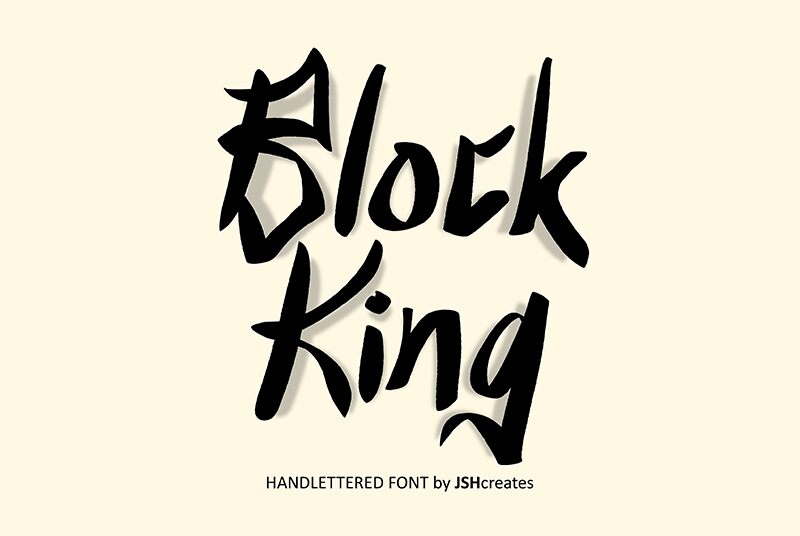
Block King
Block King font is a display graffiti font designed by JSH Creates. It has a handwritten style with an artistic flair, expressive character, and a rhythmic flow that makes it very special. A contemporary edge is also present, making this signature-like font so unique in appearance.
A wide array of uses are possible such as branding or art-related materials. You can also use Block King within logos, packaging designs, visual identities, social media posts, merchandise designs like t-shirt printing etc., posters and signage among other uses.